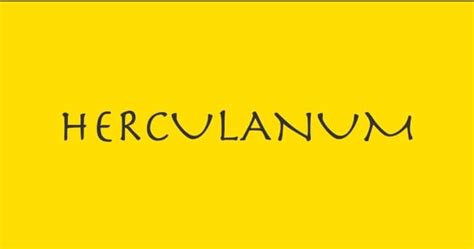
Unveiling Herculaneum Regular: A Free Font Deep Dive
Hey everyone! Today, we’re diving headfirst into the world of typography and taking a close look at a fantastic font: Herculaneum Regular . And the best part? It’s free ! If you’re looking to spice up your designs, whether it’s for a website, a poster, or just a fun personal project, this is a font you definitely want to know about. We’ll explore what makes Herculaneum Regular so special, its history, how to use it effectively, and where you can snag it without spending a dime. So, grab a coffee (or your beverage of choice), and let’s get started!
The Allure of Herculaneum Regular Font
First off, what is it about Herculaneum Regular that makes it so appealing? This font is a true classic, with a unique look that’s both elegant and readable. It’s a display font, meaning it’s designed to grab attention and make a statement, perfect for headings, titles, and short bursts of text. The design is based on the inscriptions found in the ancient Roman city of Herculaneum, which was buried alongside Pompeii by the eruption of Mount Vesuvius in 79 AD. It gives a sense of history and sophistication to your projects. Think of it as a subtle nod to the past, bringing a touch of antiquity into the modern era. The font’s letterforms are meticulously crafted, with clear, defined lines that make it easy on the eyes, even at larger sizes. This clarity is crucial for display fonts, where readability is key to capturing the audience’s attention quickly and efficiently. Moreover, Herculaneum Regular boasts a versatility that allows it to work well across a variety of design styles. Whether you’re aiming for a vintage aesthetic, a modern minimalist look, or something in between, this font can adapt to the aesthetic. The design is great because it combines the best elements of classic Roman lettering with a clean, modern approach that keeps it from feeling dated. The bold, yet refined, presence of Herculaneum Regular makes it an excellent choice for branding, headlines, and any design element where you need to make a strong visual impact. Its availability as a free font only enhances its appeal, opening up opportunities for designers of all budgets to utilize its distinctive charm.
Herculaneum Regular excels in the context of creating a distinctive visual identity. The font’s bold, clear style ensures that your message stands out without overwhelming the viewer. This is especially useful in branding projects, where consistency and memorability are critical. Furthermore, its historical inspiration imbues your project with a sense of authority and heritage. This is particularly effective if your brand or project aligns with themes of history, culture, or classic aesthetics. From a practical standpoint, the font’s readability is paramount. Even when used in large sizes, the clean letterforms of Herculaneum Regular maintain clarity, ensuring your message is easily understood. This is crucial for headings and titles, where the goal is immediate impact. Herculaneum’s adaptability further enhances its value. The font complements a wide range of design elements and styles, making it suitable for everything from print materials to digital interfaces. This versatility saves designers time and resources by reducing the need to find multiple fonts for different aspects of a project. Using Herculaneum Regular offers a perfect blend of style, readability, and historical significance, making it a great font choice for any designer looking to create visually appealing content. The fact that it is accessible for free makes it an even more valuable resource for designers looking to enhance their creative efforts.
History and Inspiration: A Roman Legacy
Okay, guys, let’s talk about where Herculaneum Regular came from. The font’s design is heavily influenced by the inscriptions and lettering found in the ancient Roman city of Herculaneum. This city, like Pompeii, was devastated by the eruption of Mount Vesuvius. The lettering style seen in Herculaneum Regular is reminiscent of the type of writing used on monuments, buildings, and public displays of the time. The Roman Empire’s inscriptions were known for their precision, elegance, and durability. The craftsmanship and artistry of the Roman letterforms have been preserved and celebrated through this font, making it more than just a typeface; it’s a tribute to history. The use of Roman lettering conveys a sense of stability, permanence, and sophistication, often associated with power and tradition. It’s a design choice that speaks volumes, immediately connecting your design with a rich historical context and cultural depth. Think about it: when you use Herculaneum Regular, you’re not just choosing a font; you’re also embracing a piece of history. The font’s design echoes the precision and clarity of its ancient predecessors. This dedication to visual purity means that every letterform is carefully designed, ensuring that each character is both functional and aesthetically pleasing. This level of detail makes the font suitable for both large and small-scale applications. The designer’s commitment to staying true to the original Roman inscriptions ensures that the spirit of the past lives on in every instance where the font is used. The font’s ability to evoke a sense of heritage and authority makes it a standout choice for projects that aim to communicate a story or build brand trust. By choosing Herculaneum Regular, you’re not just adding letters to a page; you’re writing a chapter of your own story with a design rooted in history.
This historical reference provides not just a source of inspiration but also a deep foundation for the font’s character. The way letters are formed is a direct result of ancient inscriptions. This gives Herculaneum Regular a unique look that’s different from most fonts you see today. When you’re choosing a font, it’s not just about what looks good; it’s about what it says . The history behind Herculaneum Regular gives it a silent narrative. The choice of Herculaneum Regular is a perfect option if you want to give your designs an air of authority, historical relevance, or just plain style. In the design world, understanding the roots of your tools is super important. That’s why learning the history behind Herculaneum Regular is great, not just for appreciating the font, but also for using it effectively.